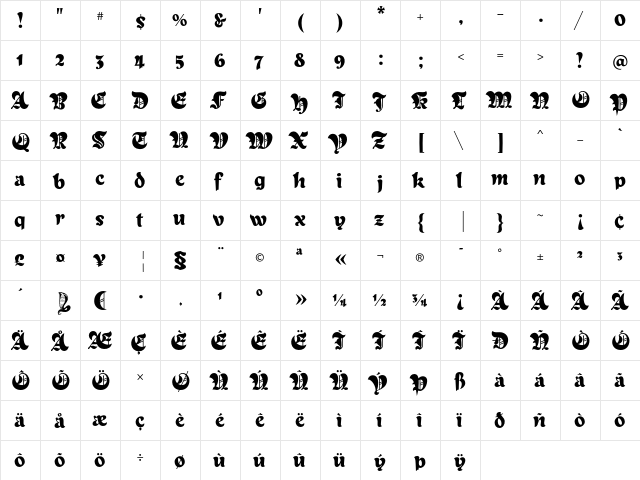
Deluta Black Regular
| Foundry | Ryoichi Tsunekawa Flat-it type foundry |
| Designer | Ryoichi Tsunekawa |
Design Context for Deluta Black Typeface
Deluta Black is a composed and adaptable typeface that performs quietly and consistently across a wide range of design contexts.